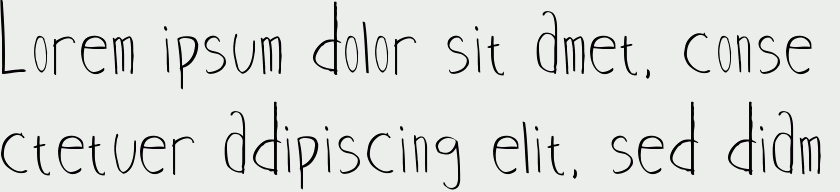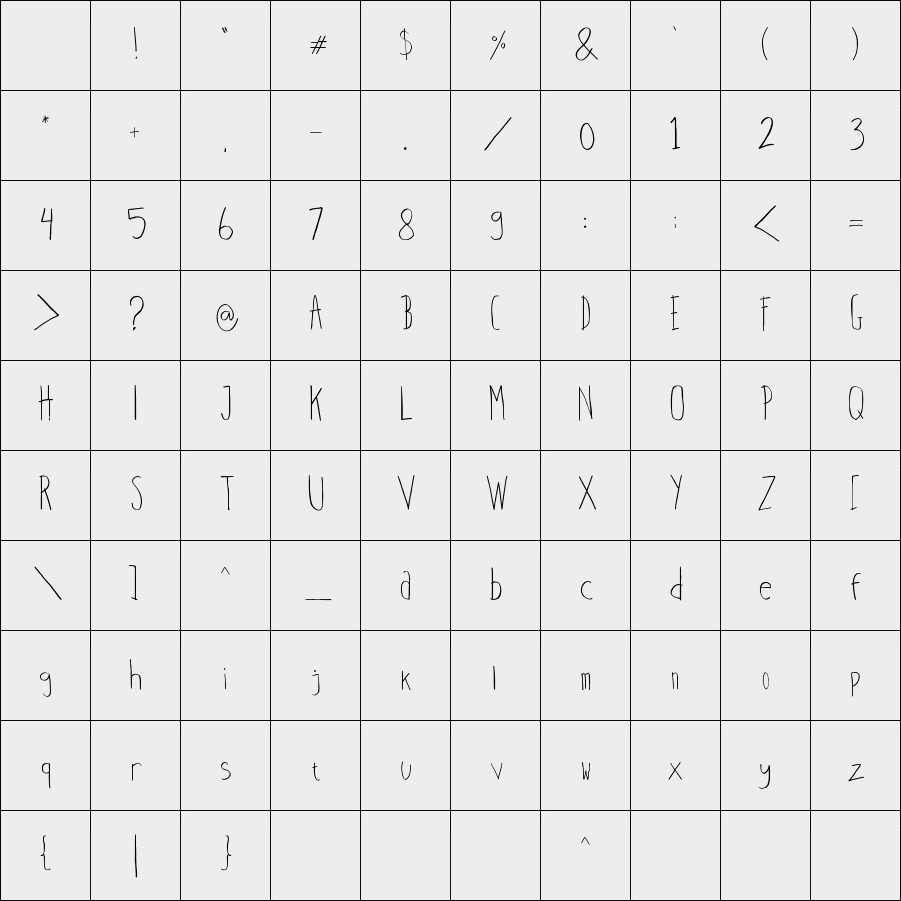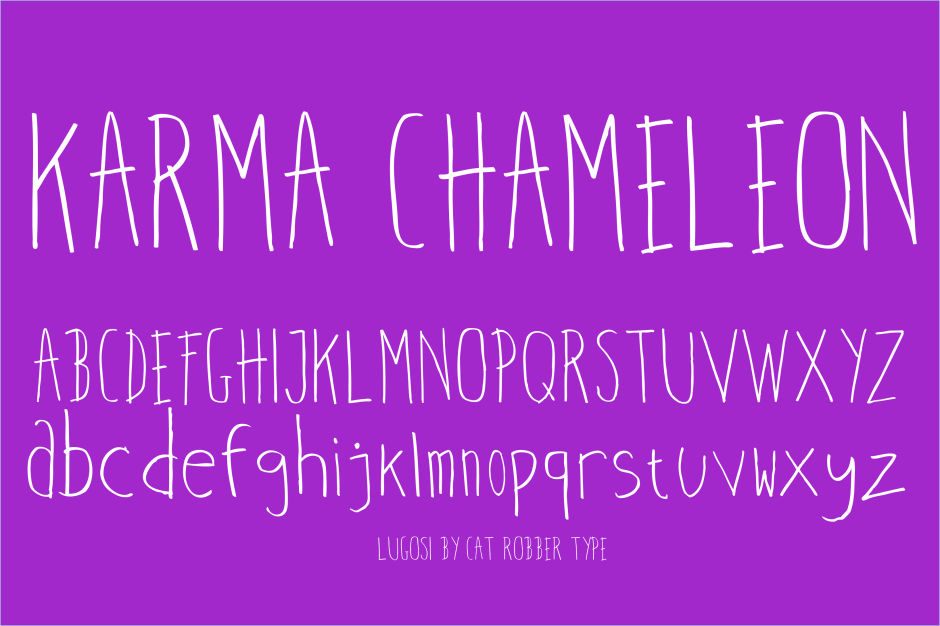
lugosi
lugosi is inspired by children's book design, simple and funny is the appeal of lugosi. effect of the use of the pencil on the letter is very pronounced indeed. This letter can be used for a children's book or another design